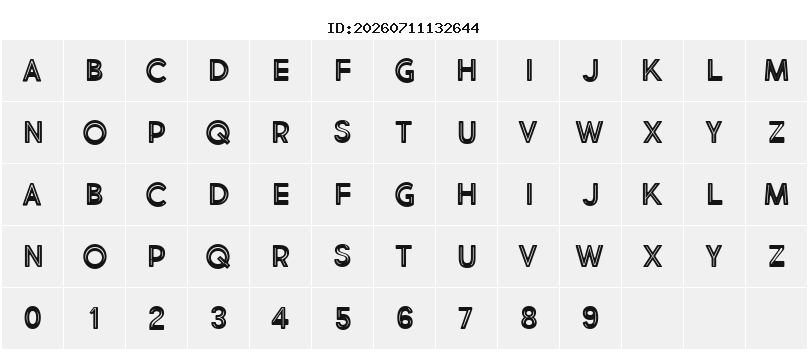
• Font Name: Market Fresh Inline Bold
• Full Font Name: Market Fresh Inline Bold
• Designer: Brittney Murphy
• Manufacturer: Brittney Murphy
Market Fresh Inline Bold.ttf is a modern, elegant sans-serif font designed for ultimate readability and visual harmony. Perfect for branding, headlines, web design, and print materials.